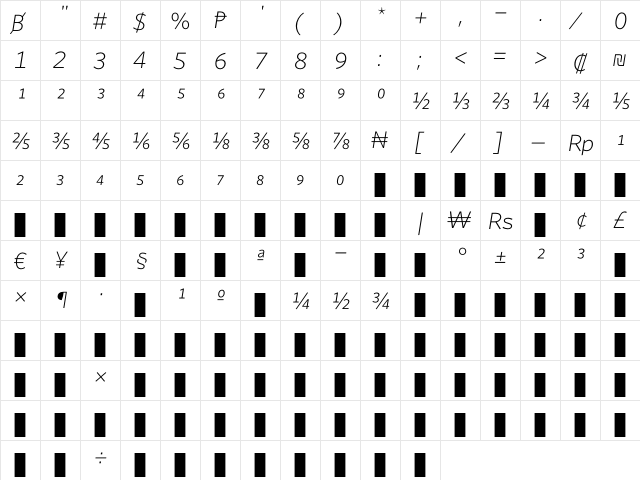
WhitneyNumeric LightItalic Font Preview
Design Context for WhitneyNumeric Typeface
WhitneyNumeric takes a measured approach to typography — its balanced proportions and neutral character make it a reliable workhorse for both digital and print work. The dynamic lean of this cut emphasises speed and emphasis in any layout. Its slender proportions lend an understated elegance to any composition.
Pro Tip: Use WhitneyNumeric for emphasis, pull quotes, and subheadings where its slanted energy can add rhythm to the layout.